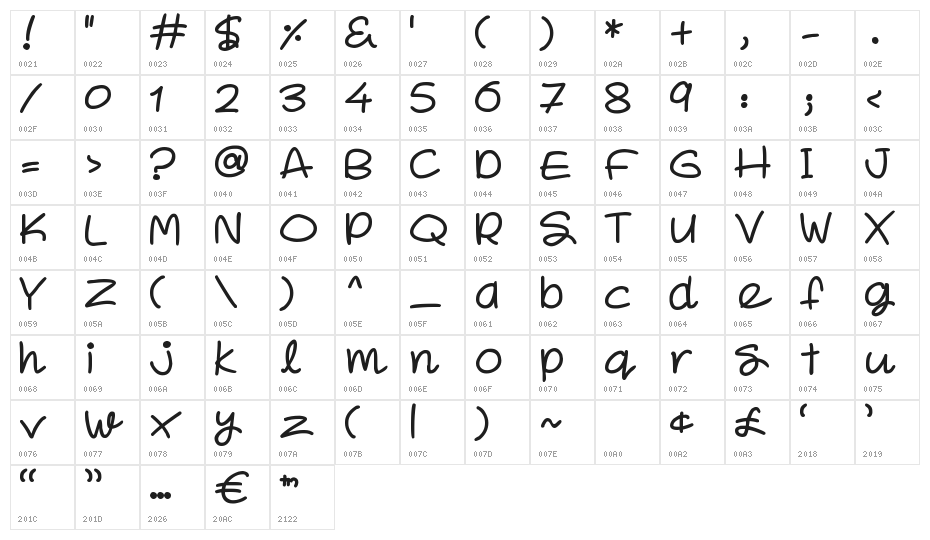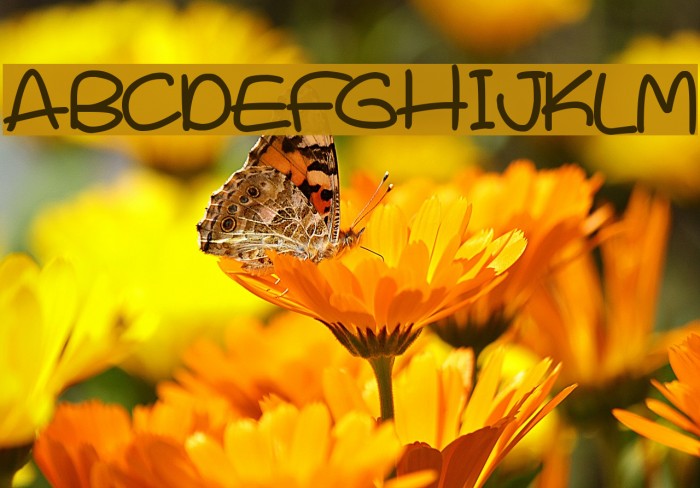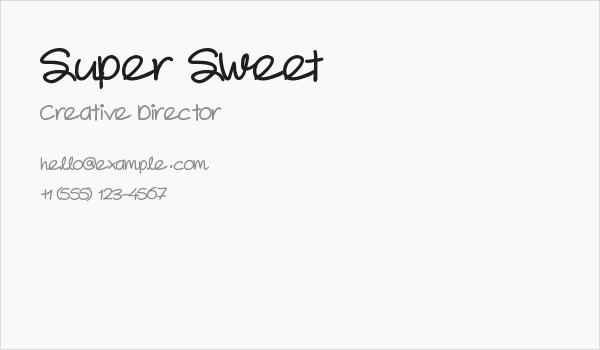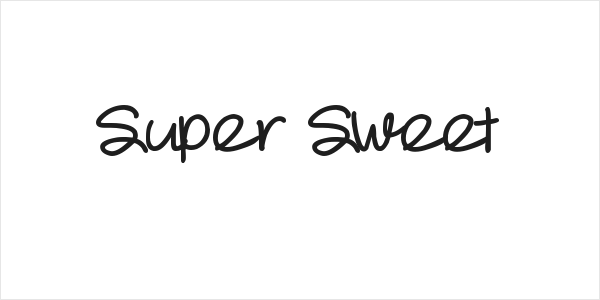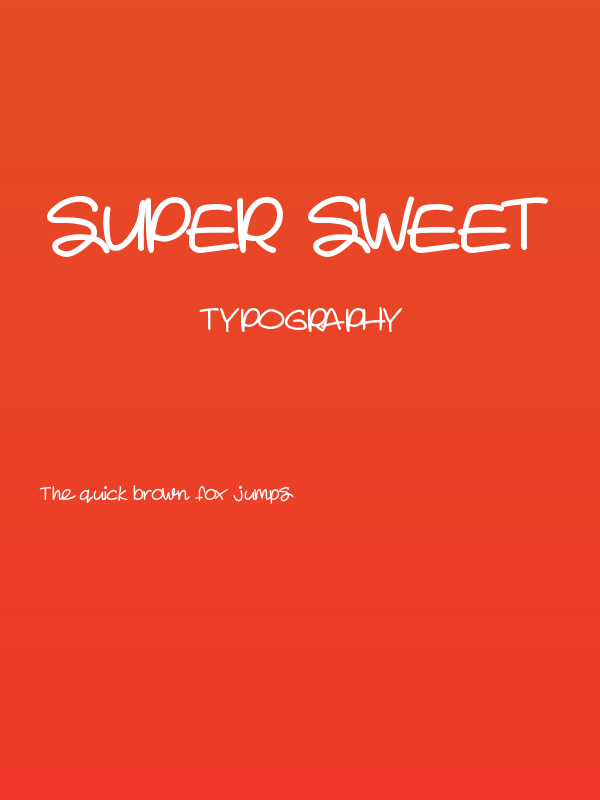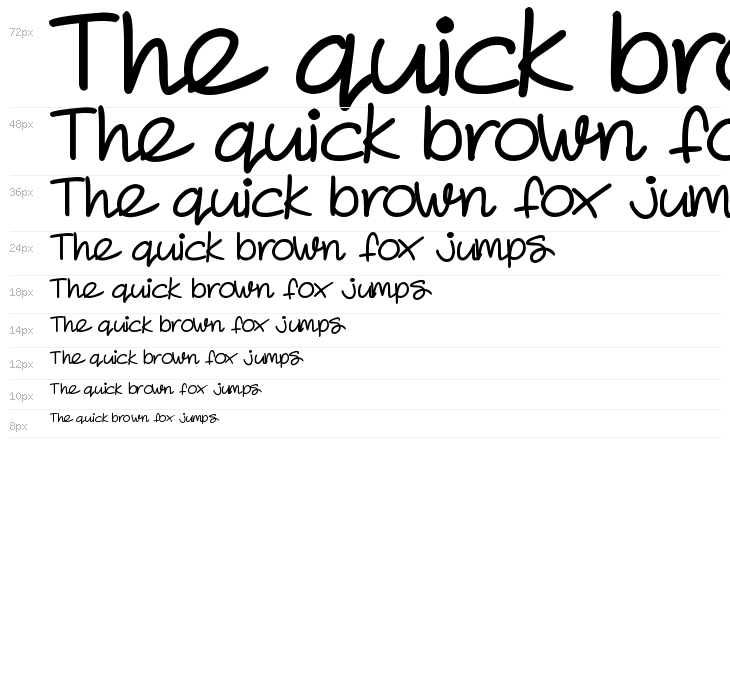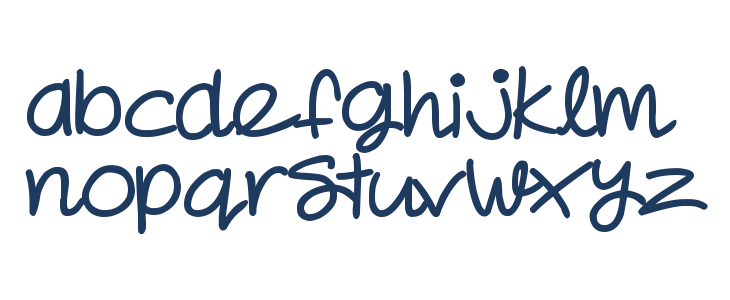
Super Sweet Font
Super Sweet Description
This playful and energetic font features a handwritten style with a casual and friendly appearance. The letters are rounded and slightly irregular, giving them a natural, organic feel. The uppercase and lowercase letters maintain a consistent flow, while the numbers and special characters complement the overall design with their smooth curves and loops. This font exudes a sense of fun and creativity, making it ideal for projects that require a personal touch. The strokes are uniform in thickness, providing a balanced look that is easy to read while still being visually engaging.